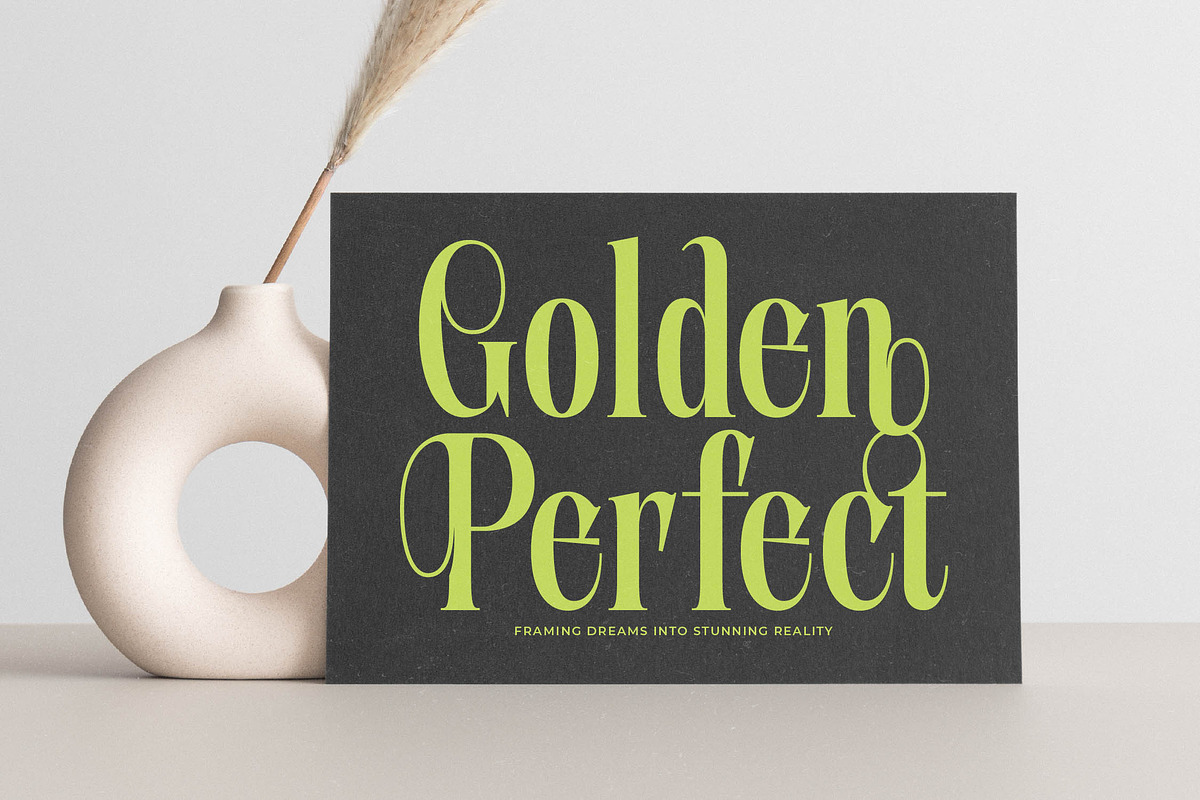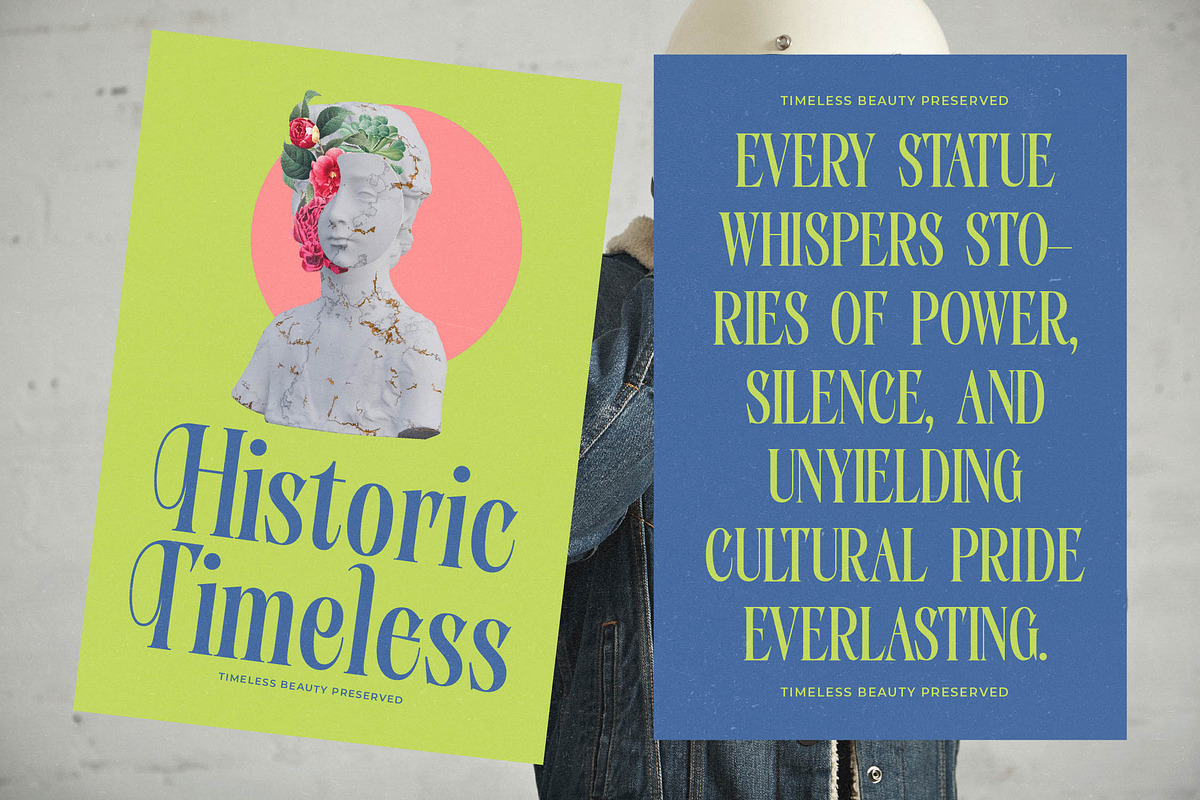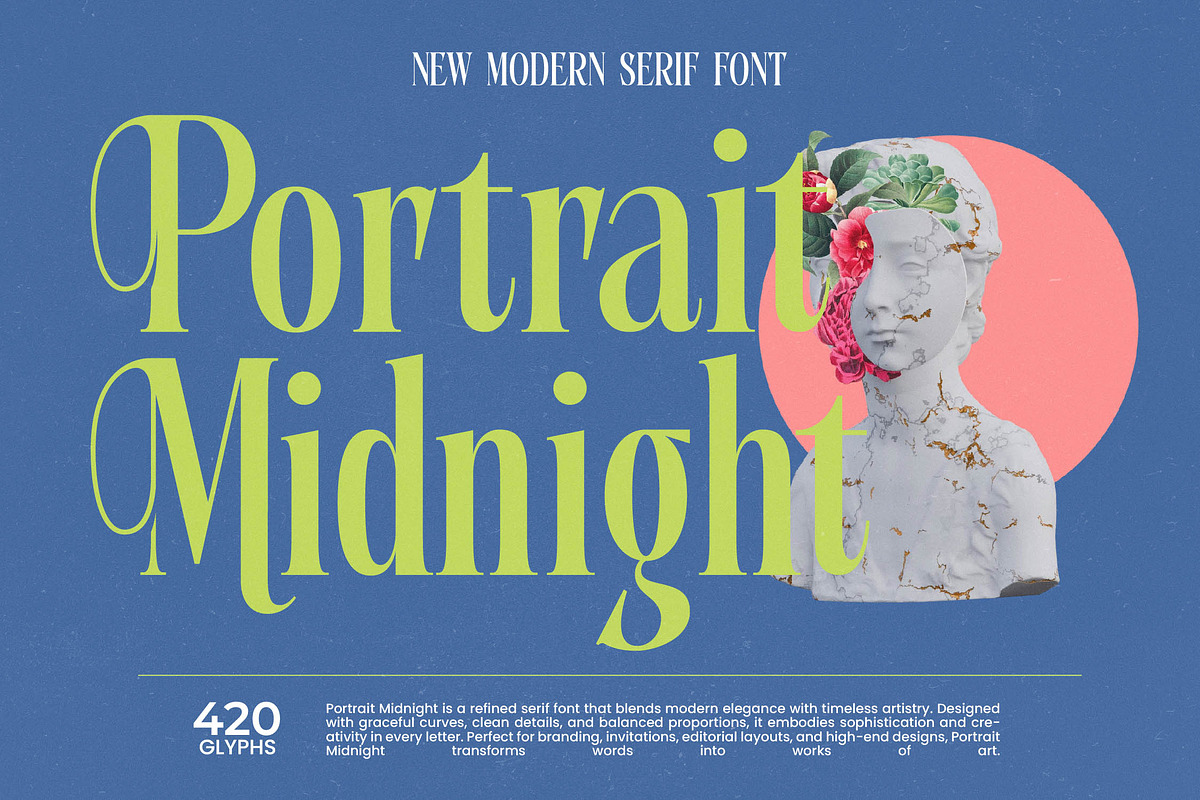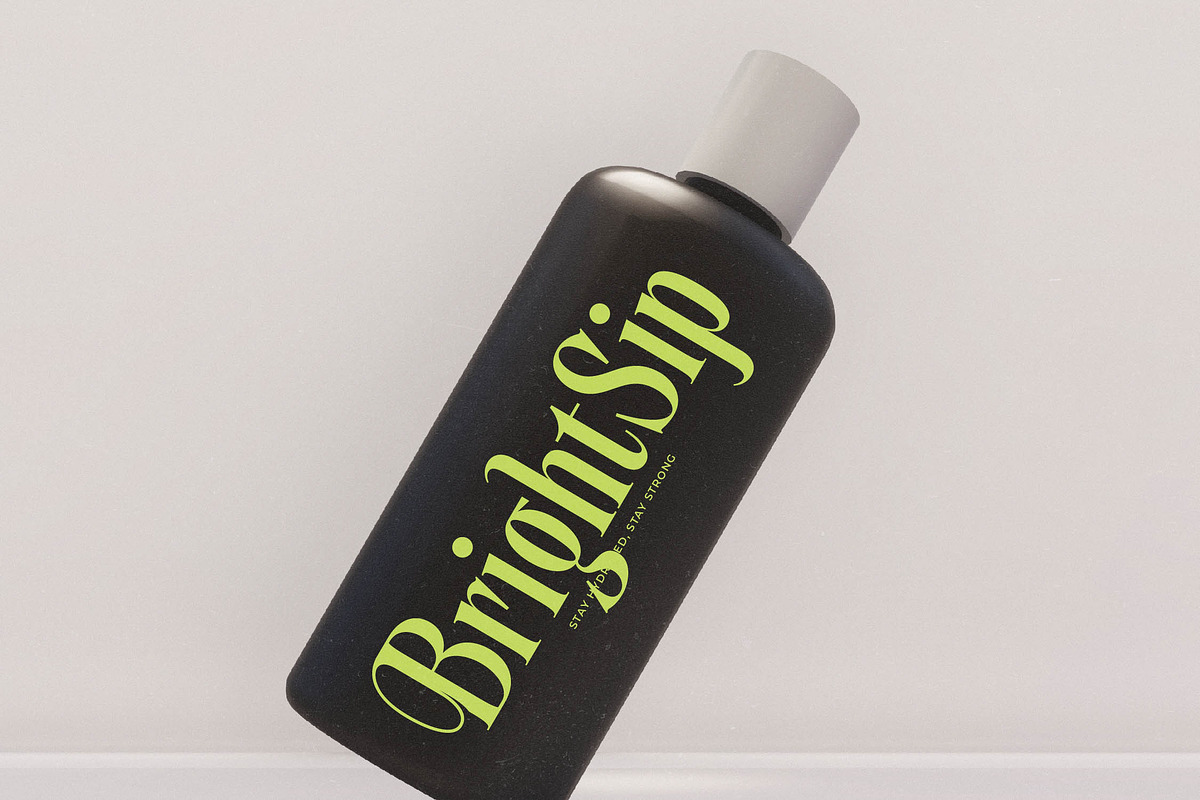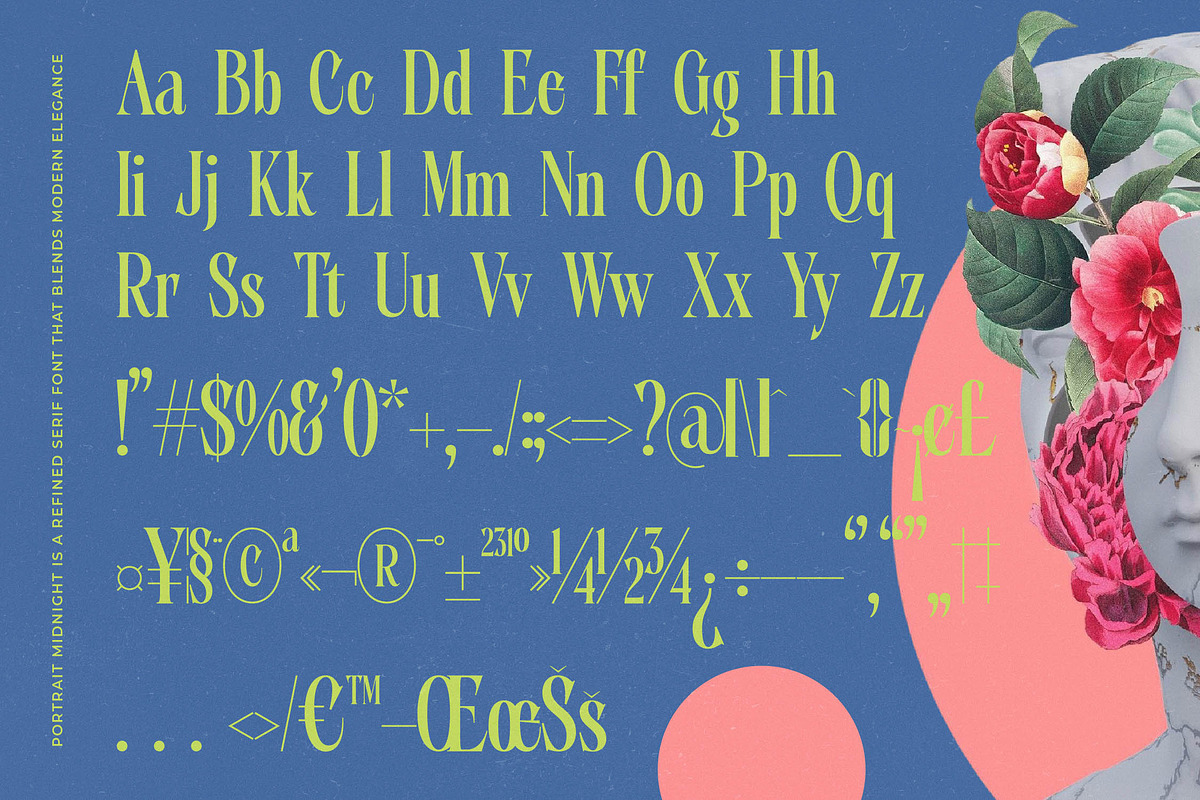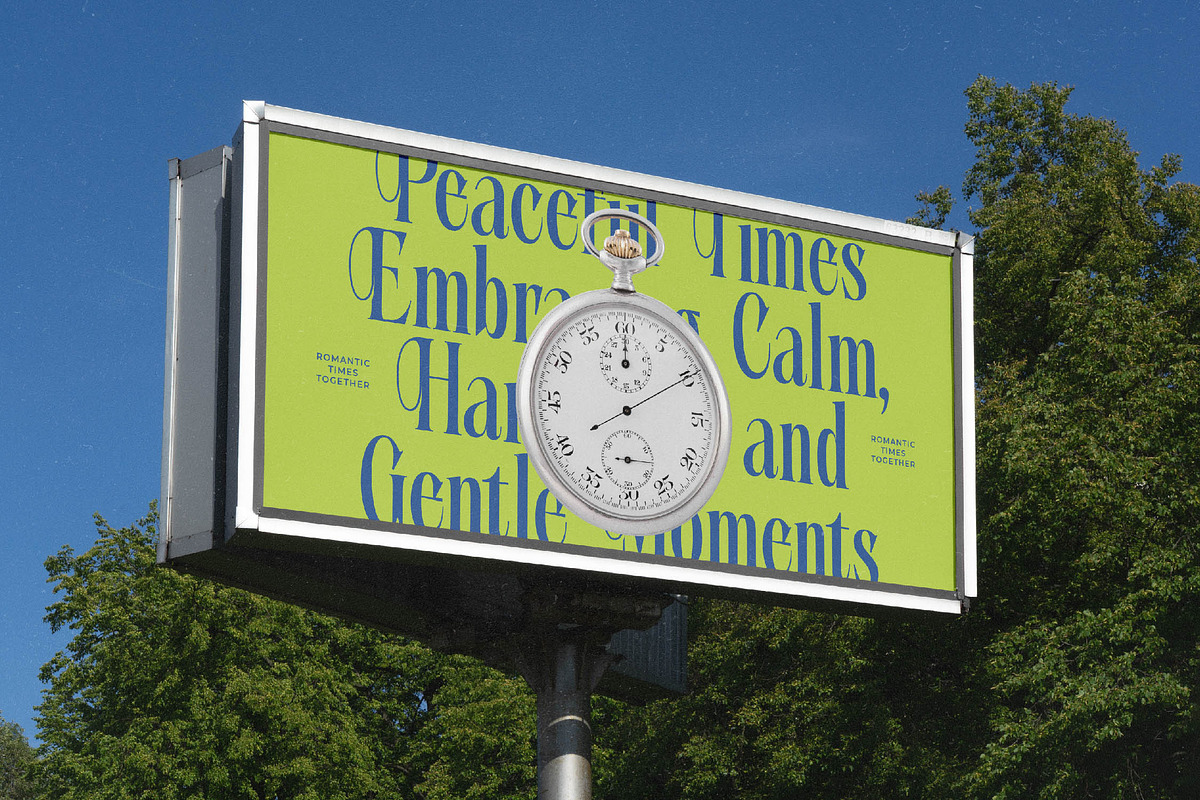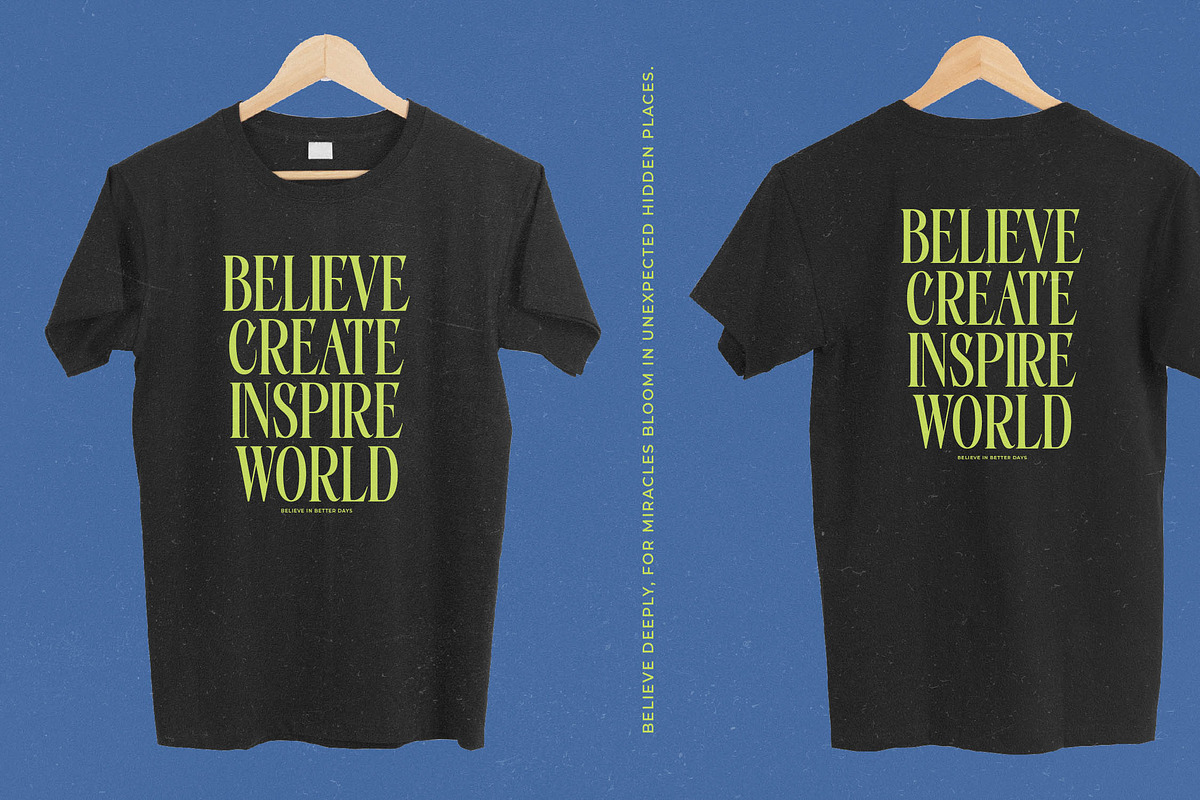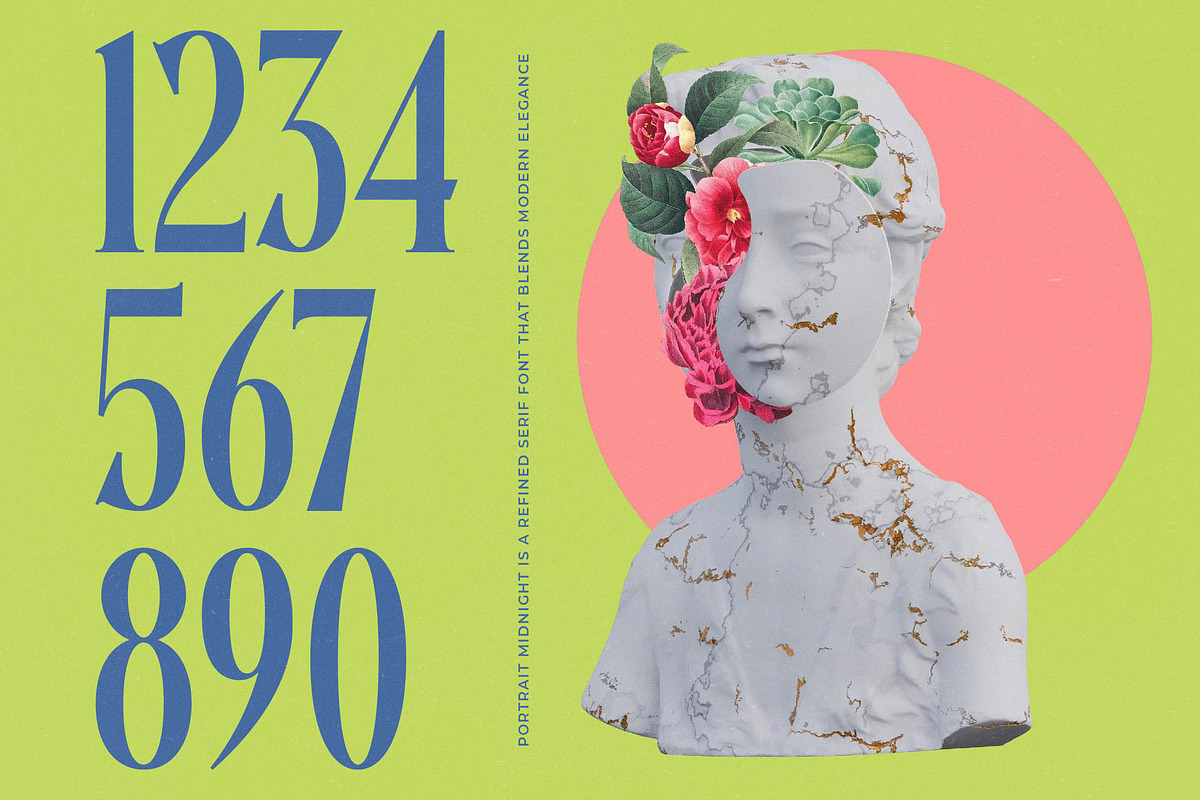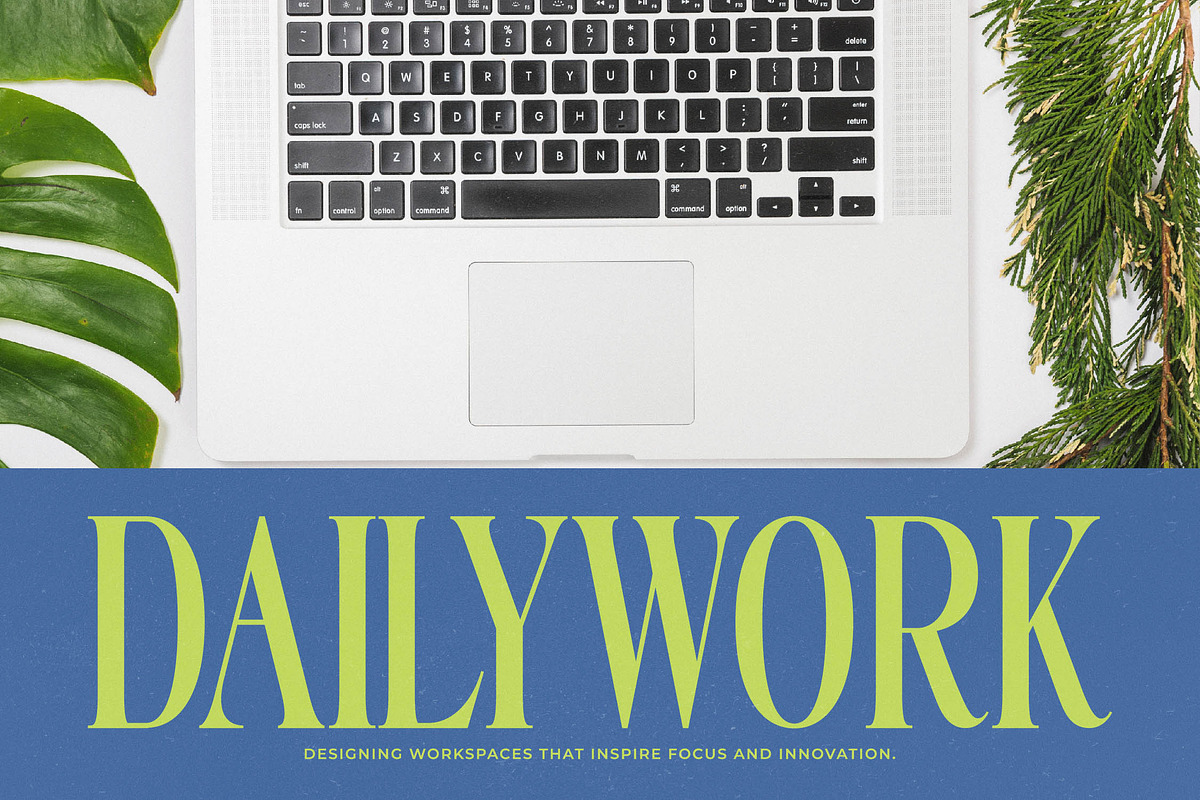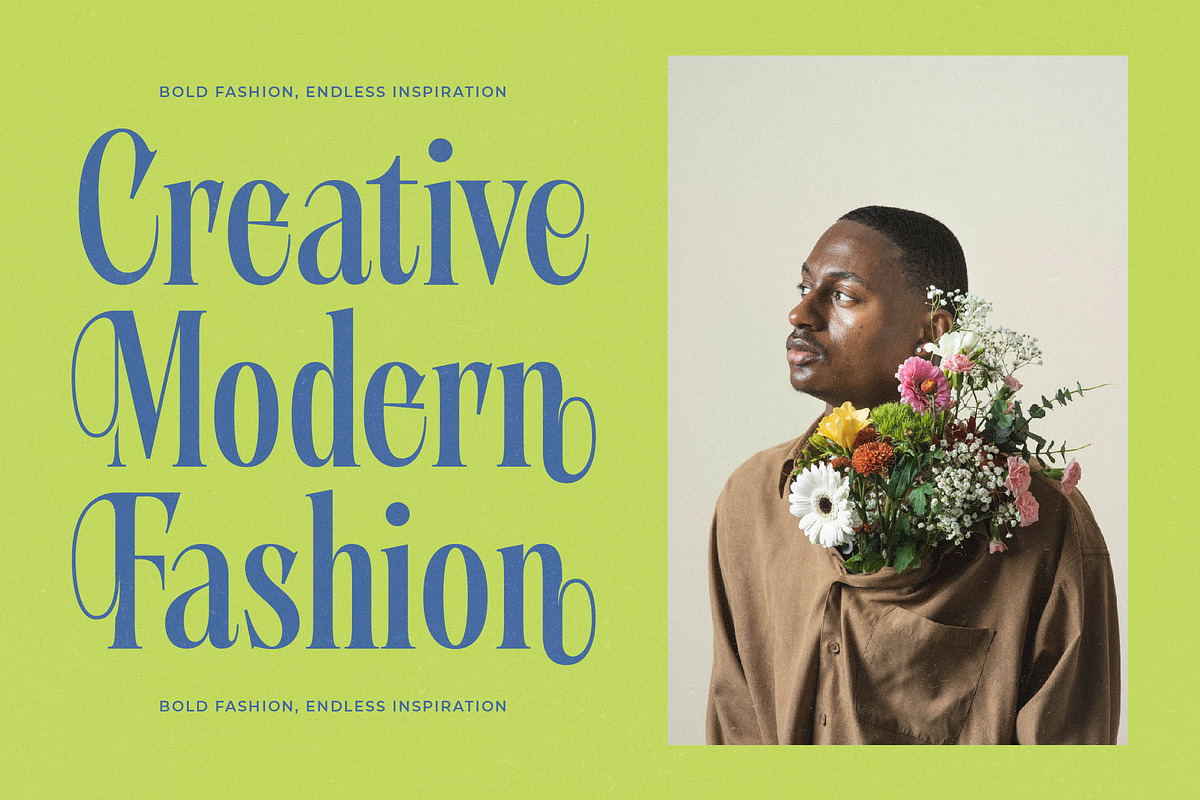
Portrait Midnight Modern Serif
Portrait captures the essence of refined elegance, offering a sophisticated aesthetic that transcends time and space. This stunning typeface invites you into a world where every curve tells a story of grace and meticulous craftsmanship.
Drawing inspiration from the enigmatic beauty of midnight shadows and classical marble sculptures, this font embodies a bridge between antiquity and the avant-garde. It reflects a visual atmosphere that is both hauntingly beautiful and profoundly modern, perfect for creators who seek depth in their work.
As a modern serif display, this typeface delivers a powerful branding impact while maintaining a delicate balance of luxury typography. Its high-contrast serif details ensure that your message remains sharp and authoritative, making it an essential editorial font for any high-end project.
Aligning with the current modern serif trend, this typeface meets the demand for character-driven typography that stands out in a crowded digital landscape. It is the perfect choice for designers looking for editorial display fonts that bring a sense of couture and bespoke artistry to contemporary media.
This versatile tool excels in logo design and high-end branding, providing a unique identity for fashion houses and luxury boutiques. Beyond commerce, it is a dream for editorial layouts, packaging concepts, and sophisticated wedding stationery that requires a touch of fashion-forward flair.
The font comes packed with a generous selection of ligatures and creative alternates that allow for custom-tailored text compositions. It also includes elegant swashes and full multilingual support with international characters, ensuring your creative vision is accessible to a global audience.
- Ligature 16 Alternate 74